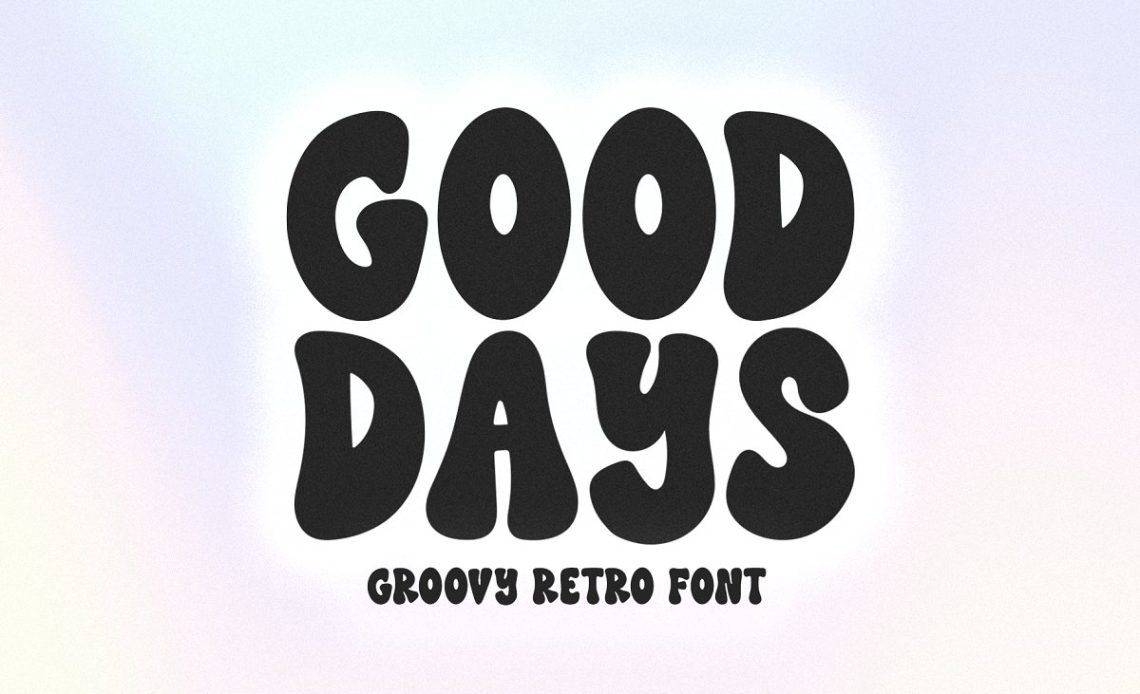
Looking for the best fonts for retro logos? Look no further than Good Days - the groovy retro font that's taking the design world by storm. Created by the talented Kaitlynn Albani, Good Days is a hand-drawn font with big, bold letters that are sure to make your designs stand out.
Whether you're creating retro shirt designs, stickers, phone cases, doormats, Instagram quotes, branding, logos or anything else, Good Days is the perfect choice. With its eye-catching style and versatile design, this font is sure to elevate any project you're working on.